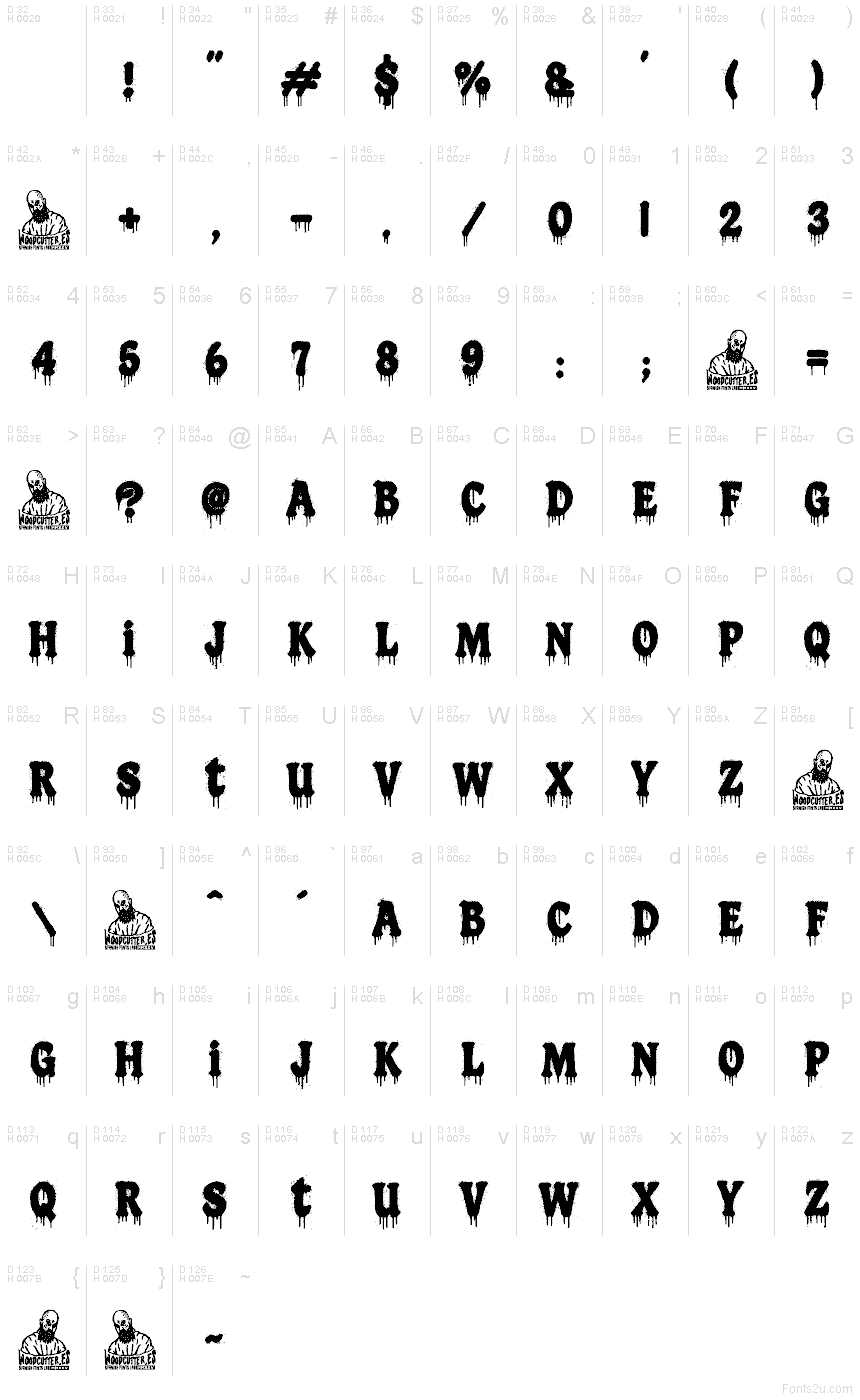
Hell's Kitchen
Hell's Kitchen font by Woodcutter is a display typeface defined by its scary style that seeks to create intense designs. The textures are gritty and rough, with Gothic influences and characteristics. Each character uses a macabre design approach, giving the font an eye-catching look with dramatic presence and strong visual weight.
Free unusual typography styles like Hell's Kitchen are popular choices when working with covers for horror literature genres, book cover titles, posters for thriller movies, streetwear fashion products' branding, advertisement fliers for events like escape rooms or haunted house attractions.